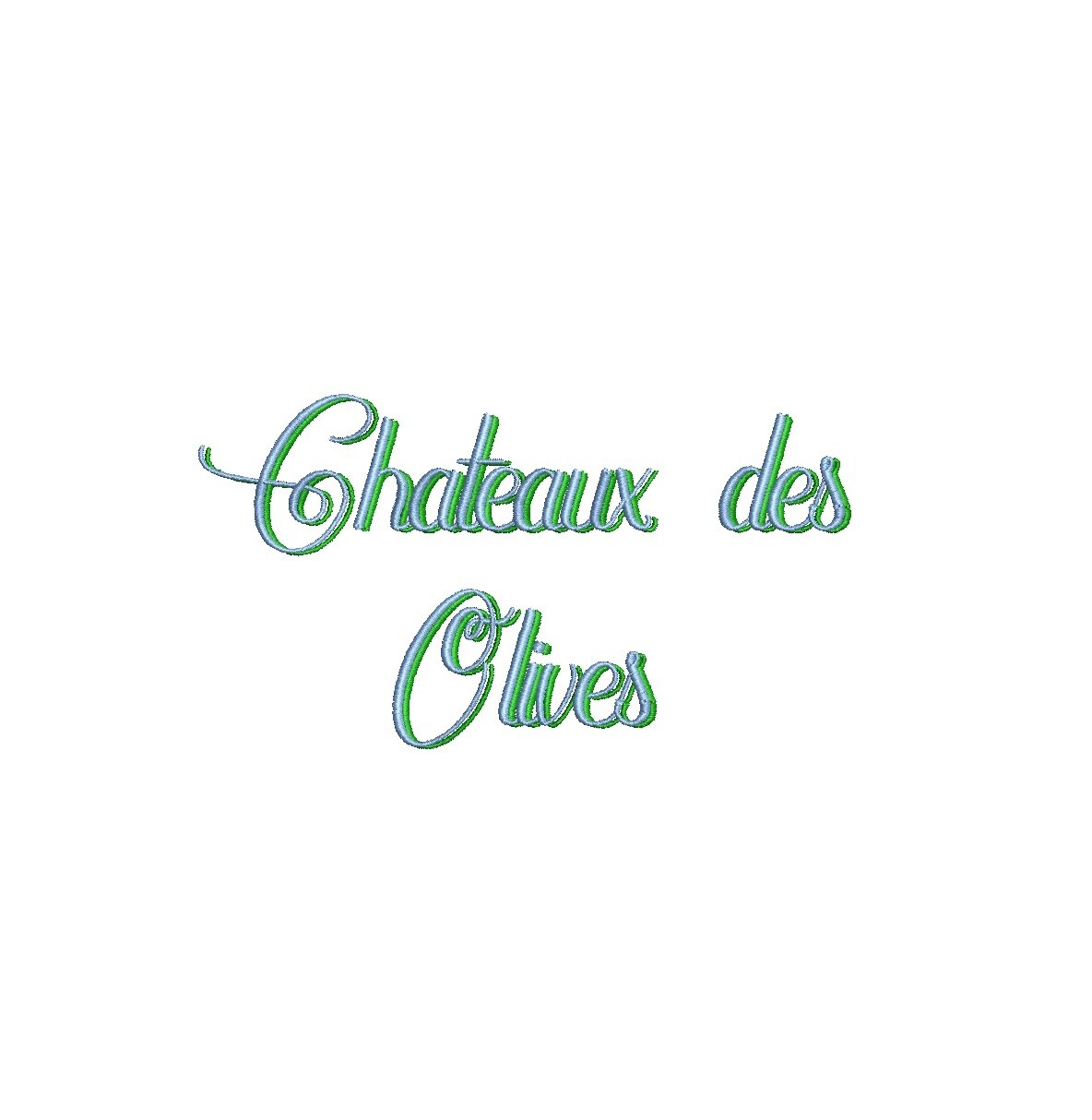
Elevate your designs with the enchanting Chateaux des Olives Shadow ESA font. Fully compatible with Wilcom Studio e4.5.6 and Hatch 3 versions and up, this font brings a touch of elegance and timeless charm to your projects. The intricate shadows and graceful lines of this font create a captivating visual impact that sets your designs apart. Streamline your creative process and achieve flawless results by utilizing this font with industry-leading software. Upgrade your projects with the compatibility of Chateaux des Olives Shadow ESA font and craft visuals that leave a lasting impression. Embrace creativity and refinement for your design journey today!